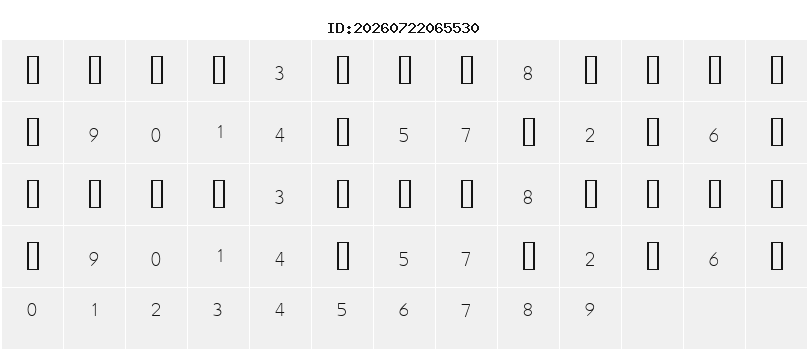
HoosickFallsFractions Preview
About HoosickFallsFractions.ttf
HoosickFallsFractions.ttf is a modern, elegant sans-serif font designed for ultimate readability and visual harmony. Perfect for branding, headlines, web design, and print materials.